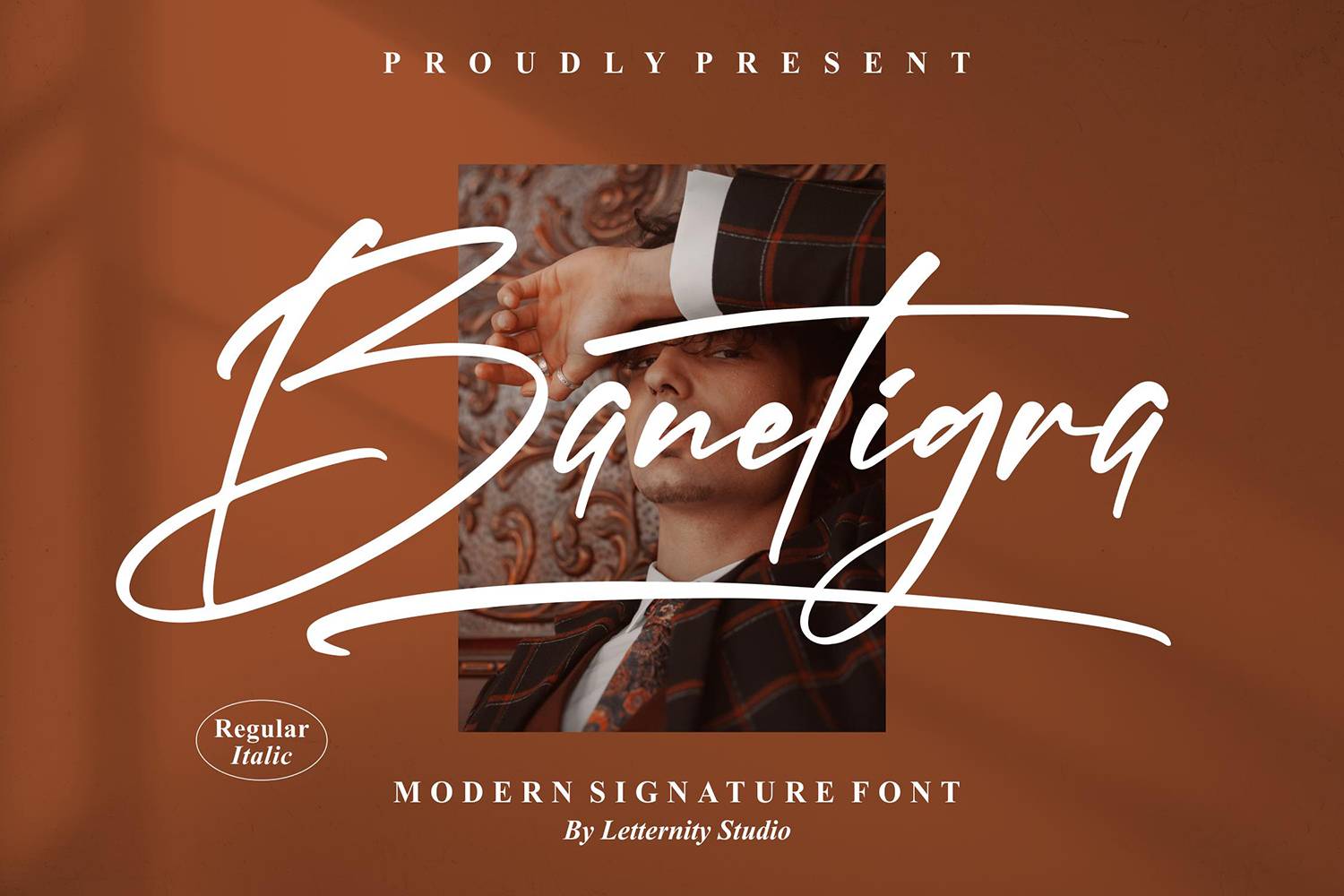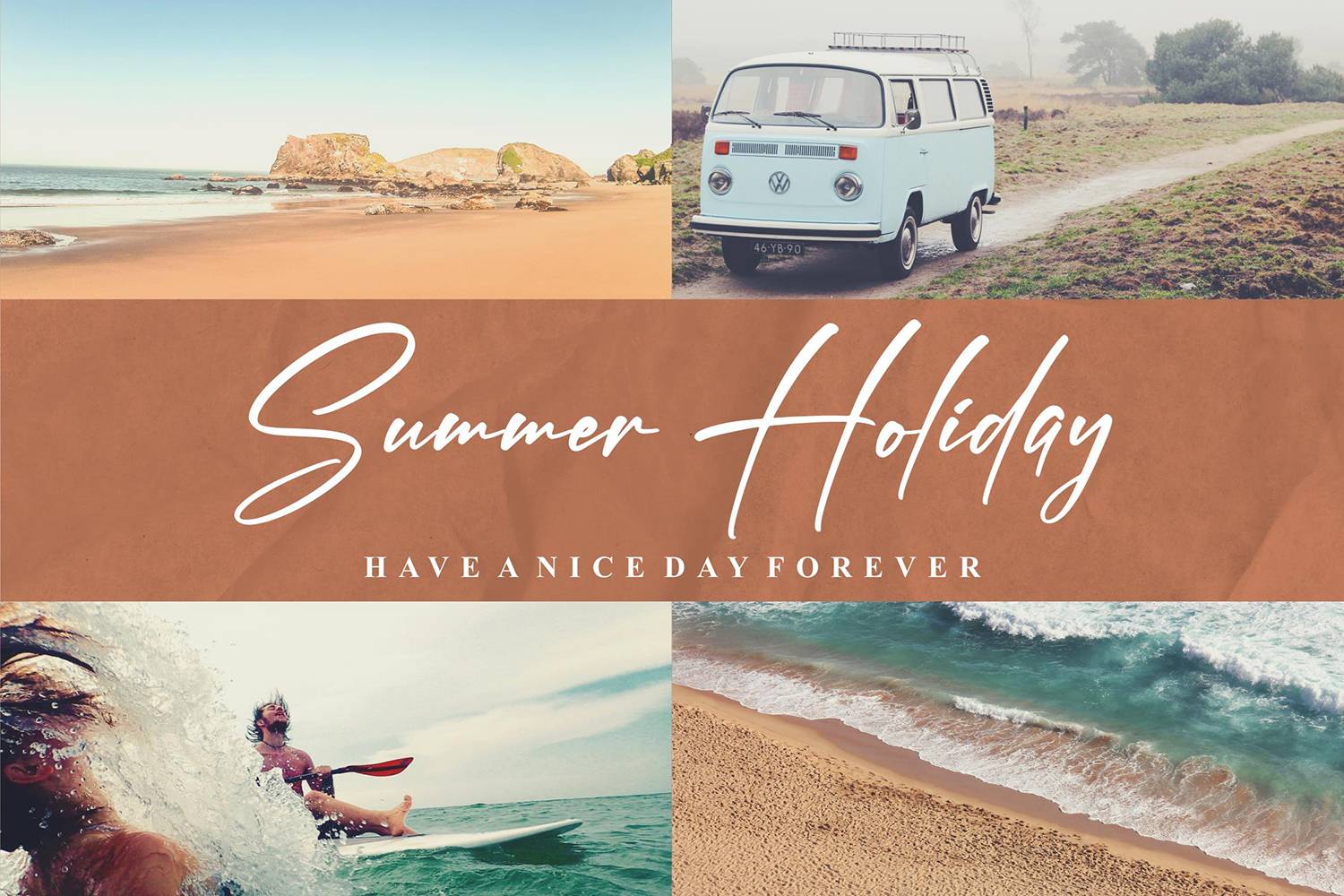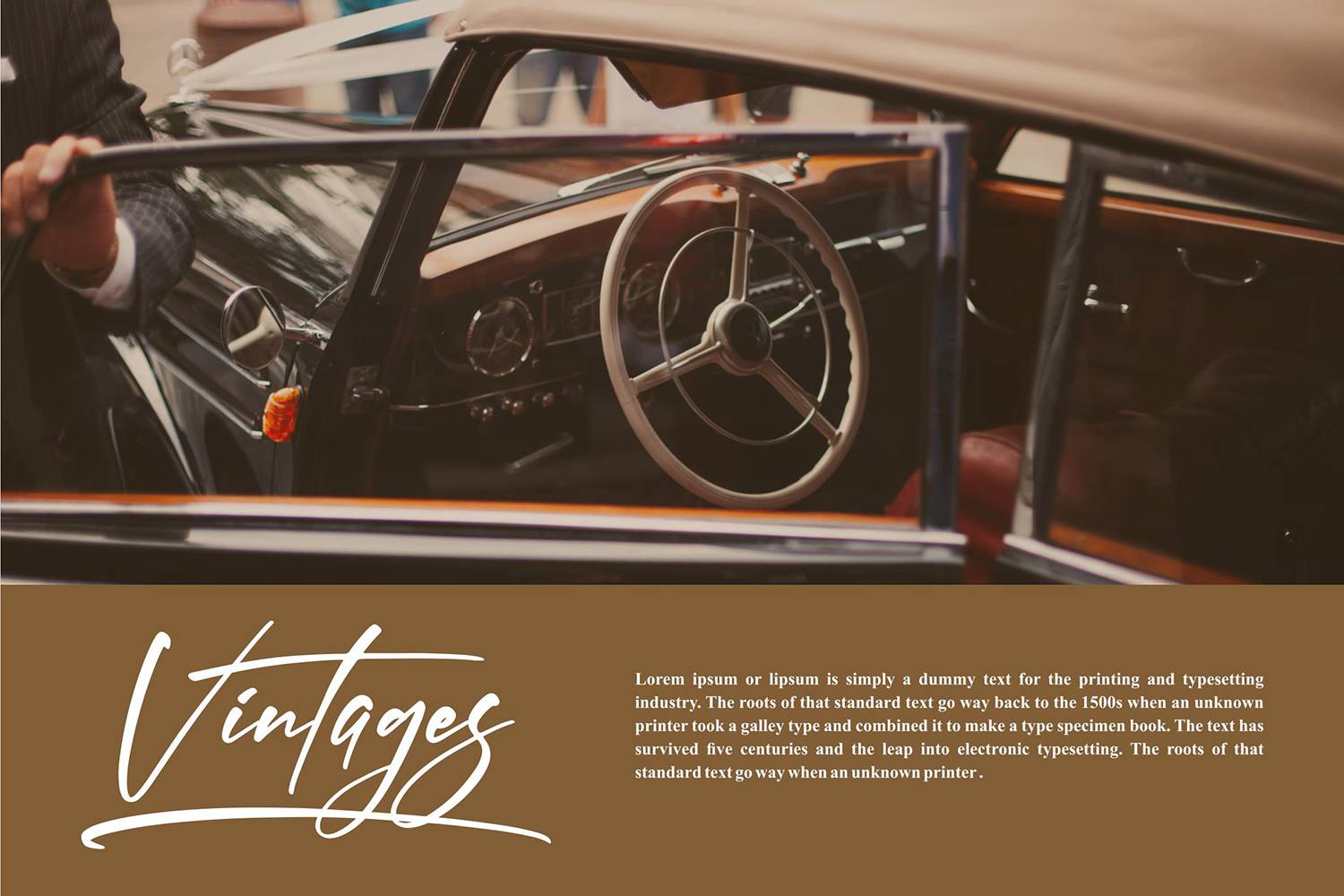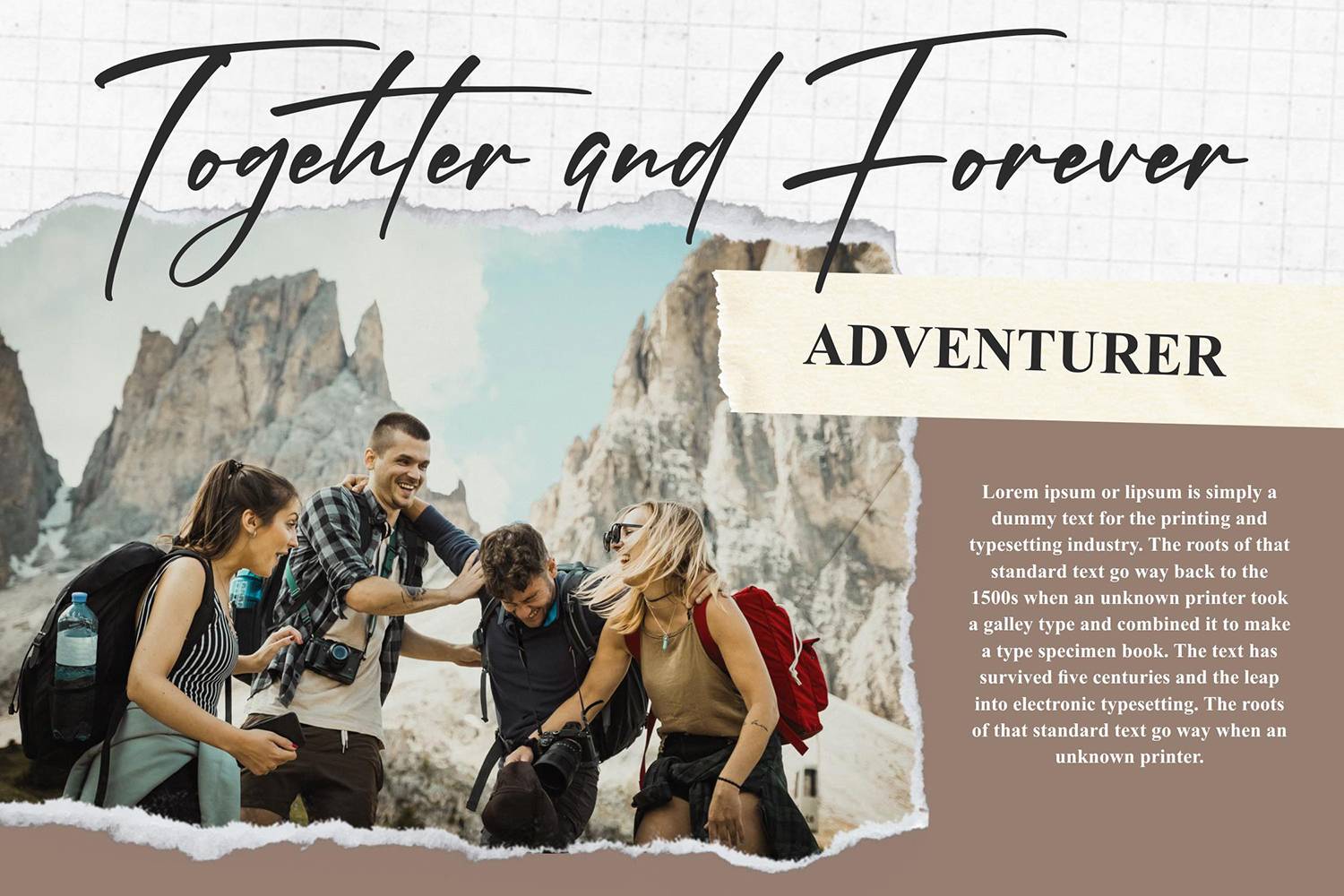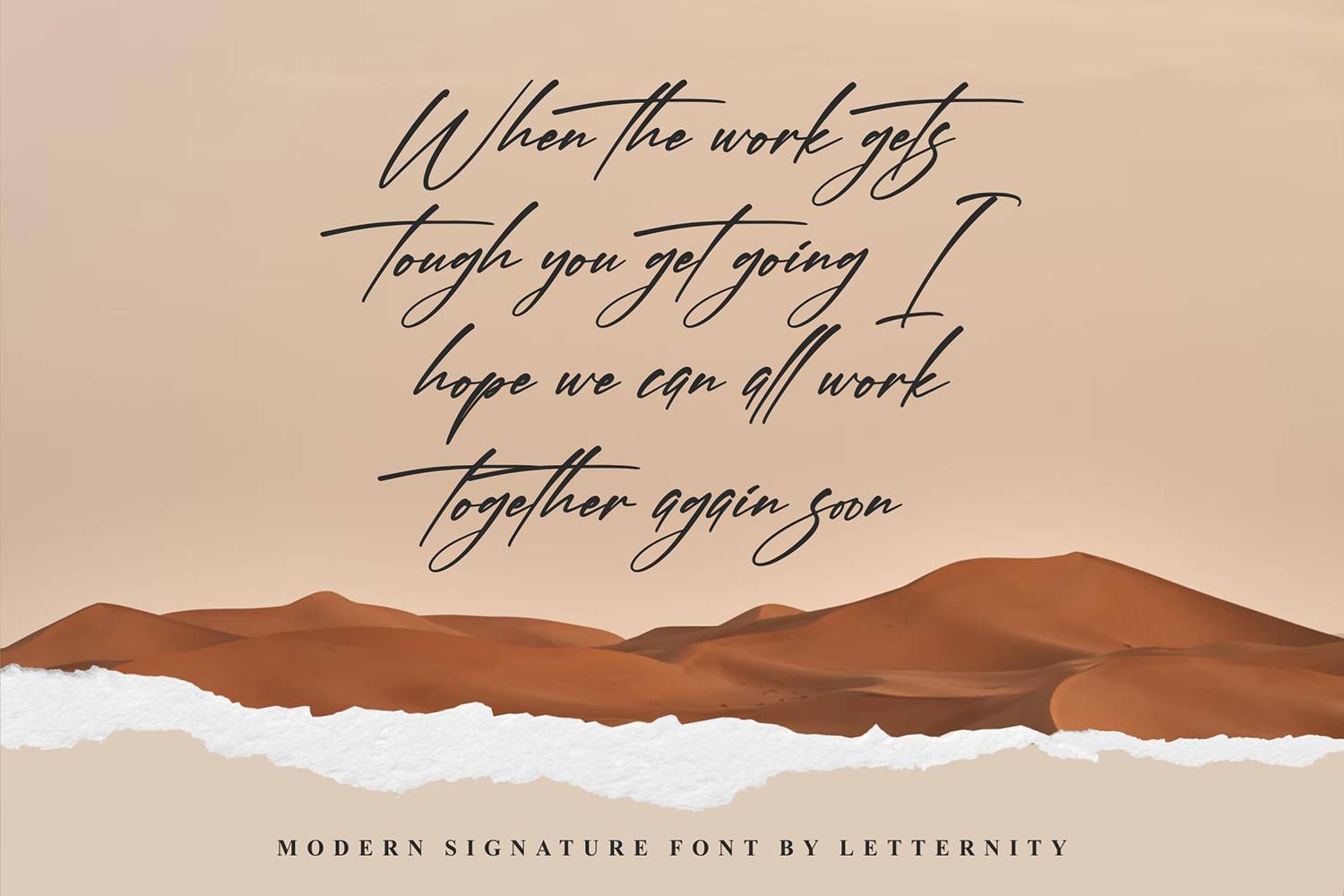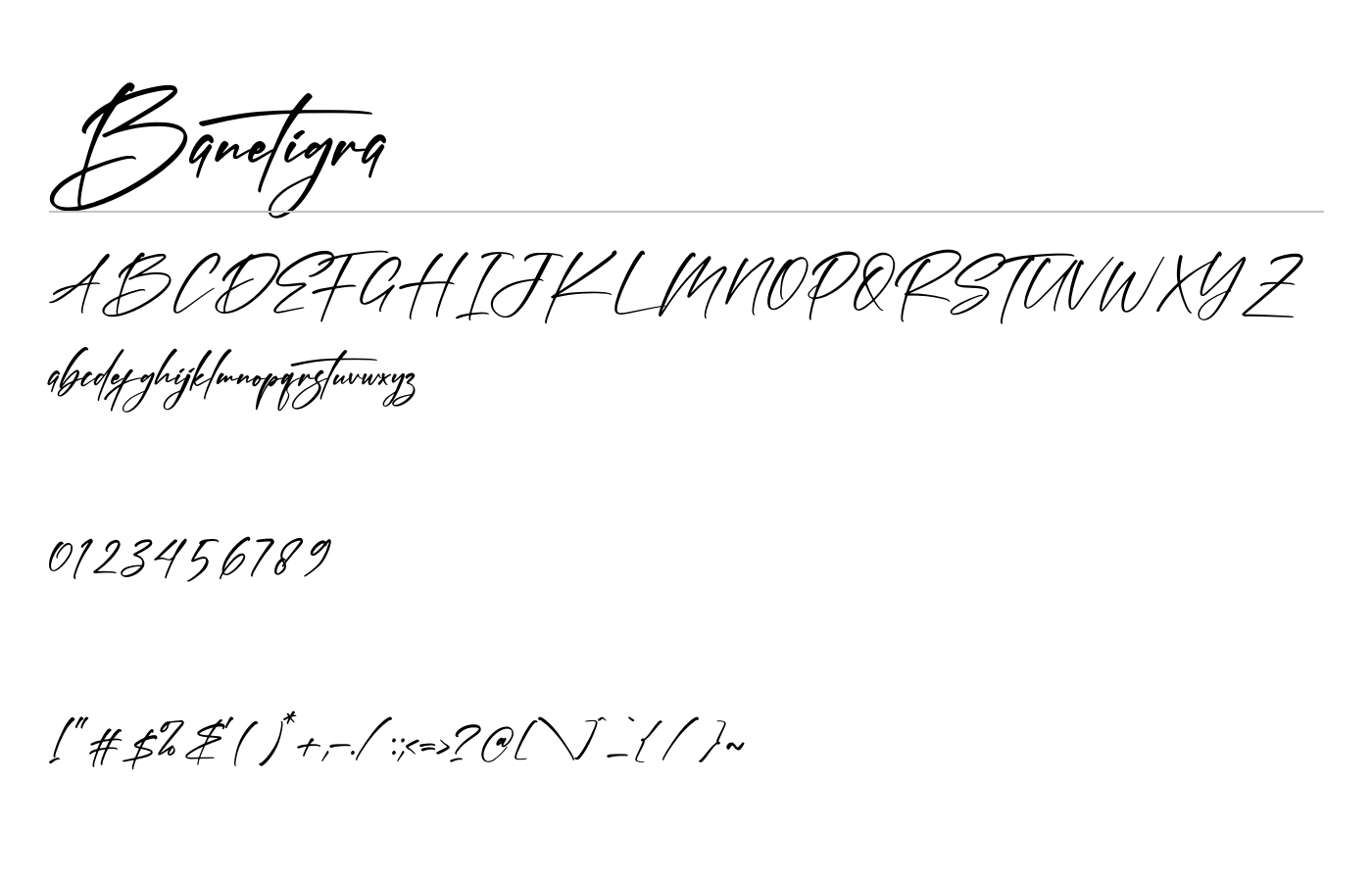
Banetigra is a stylish handwritten script font characterized by its elegant, flowing strokes and slender weight. Its tall, narrow letterforms with moderate contrast and smooth, natural curves give it a refined yet casual feel, making it ideal for personal branding, invitations, and creative projects that require a touch of sophistication with a modern, artistic vibe. This font works beautifully in headlines, logos, and decorative text where a delicate and expressive hand-drawn look is desired.